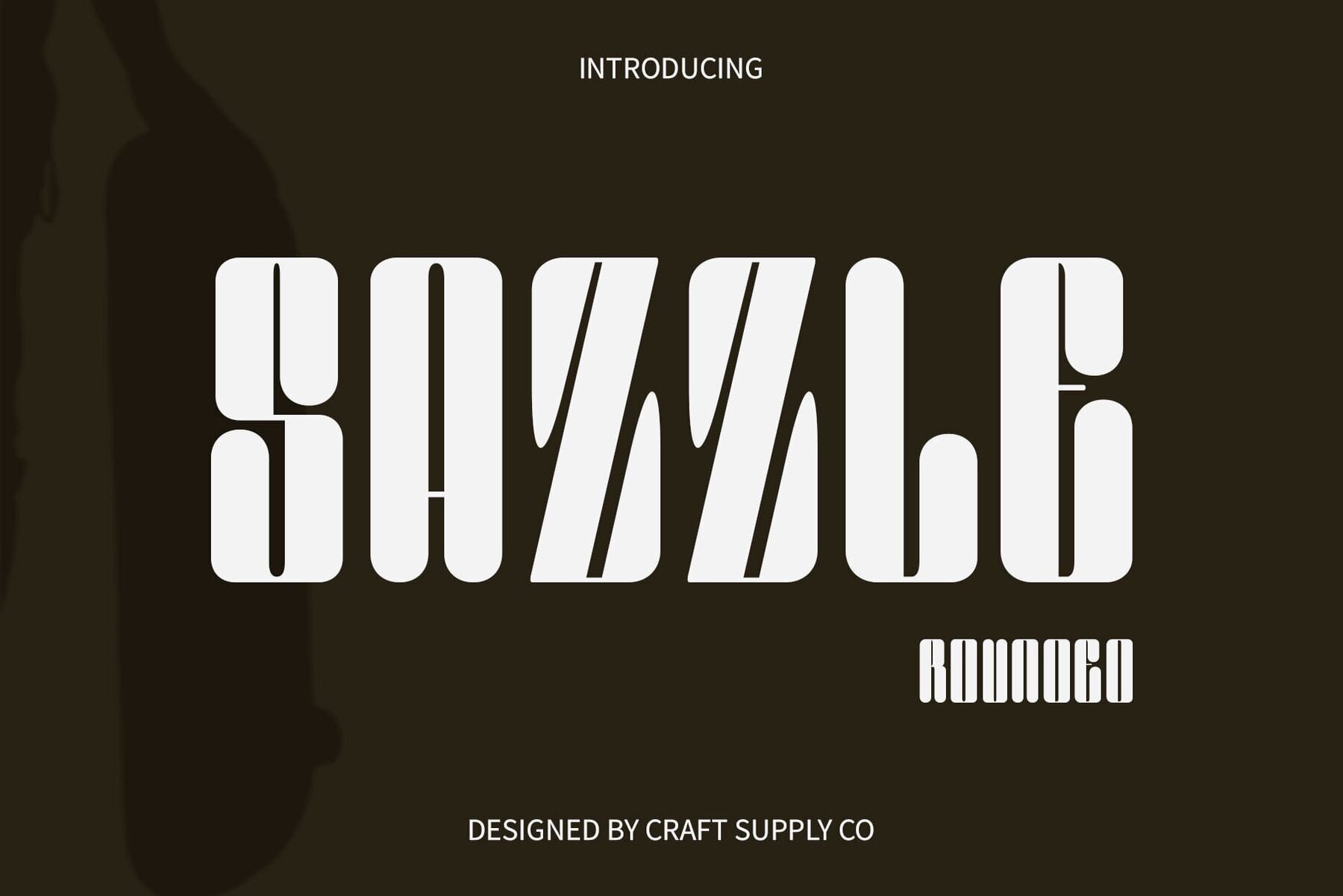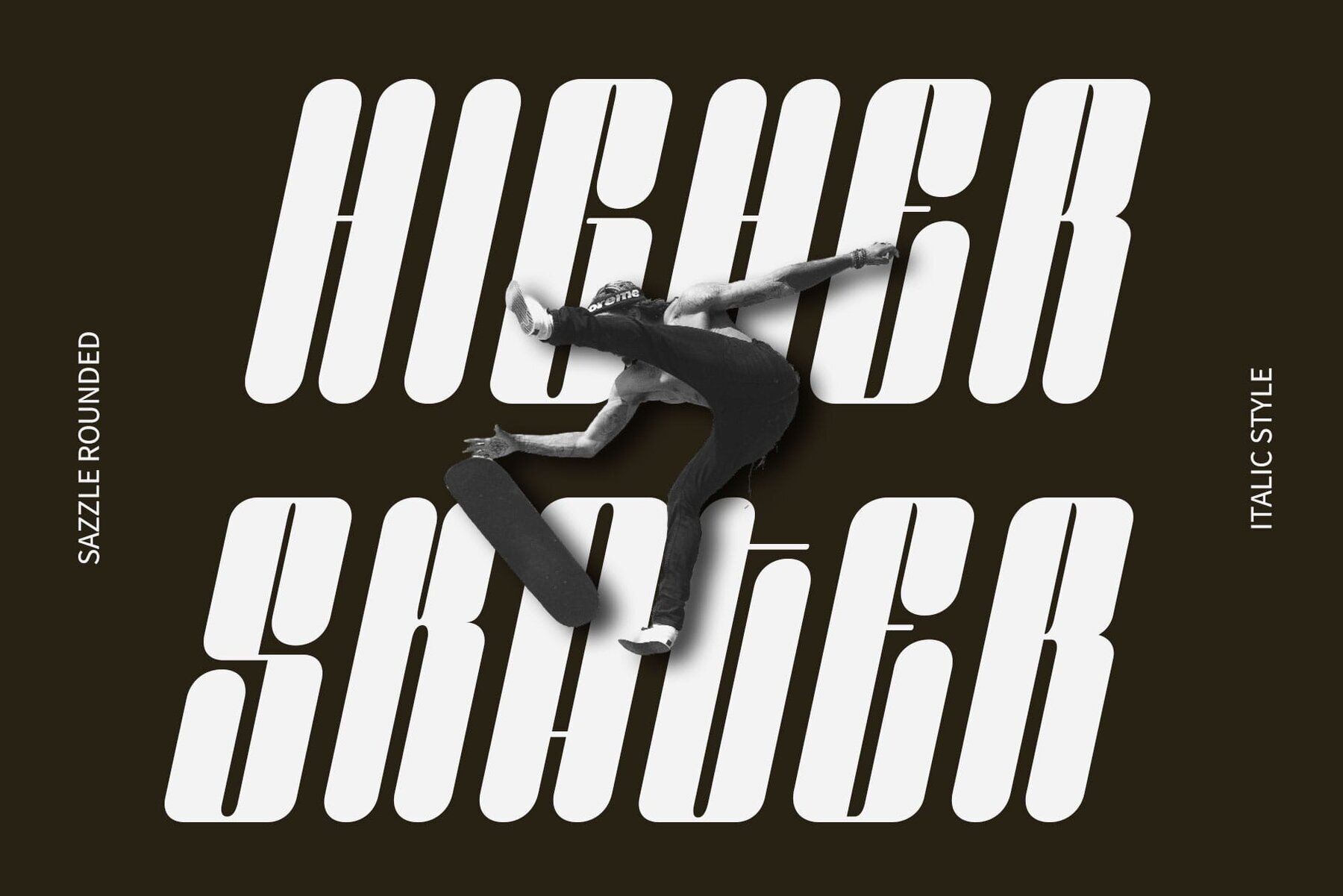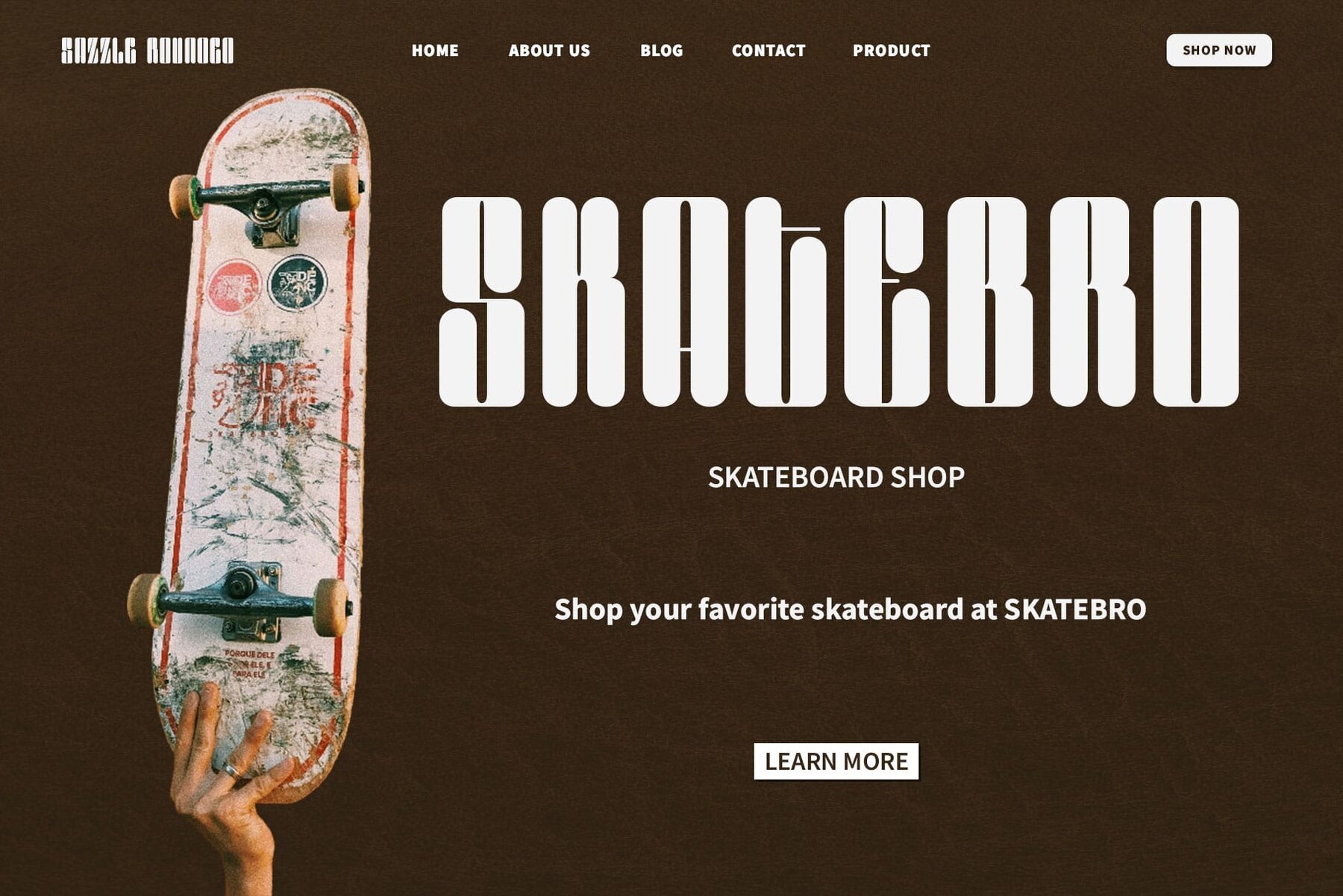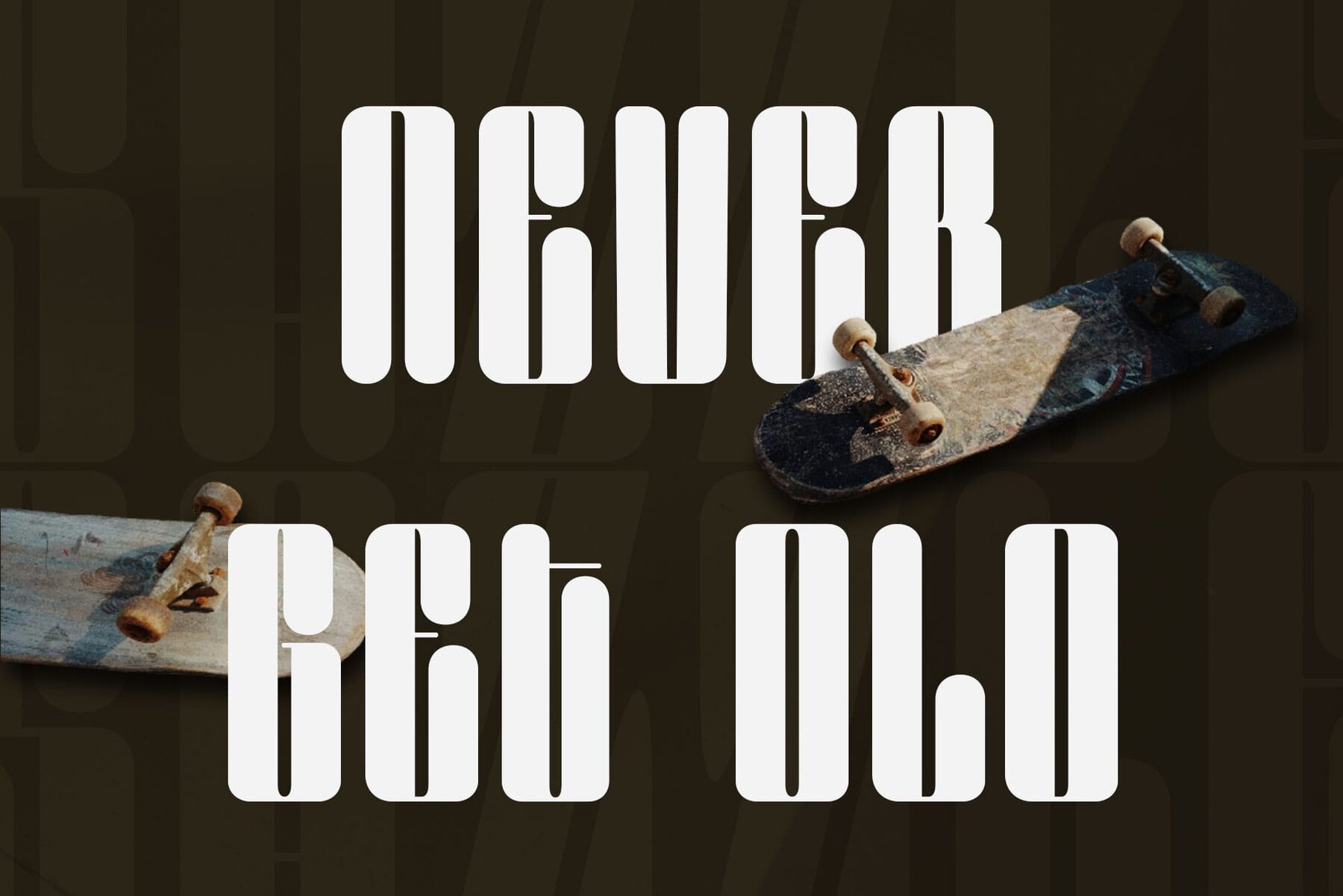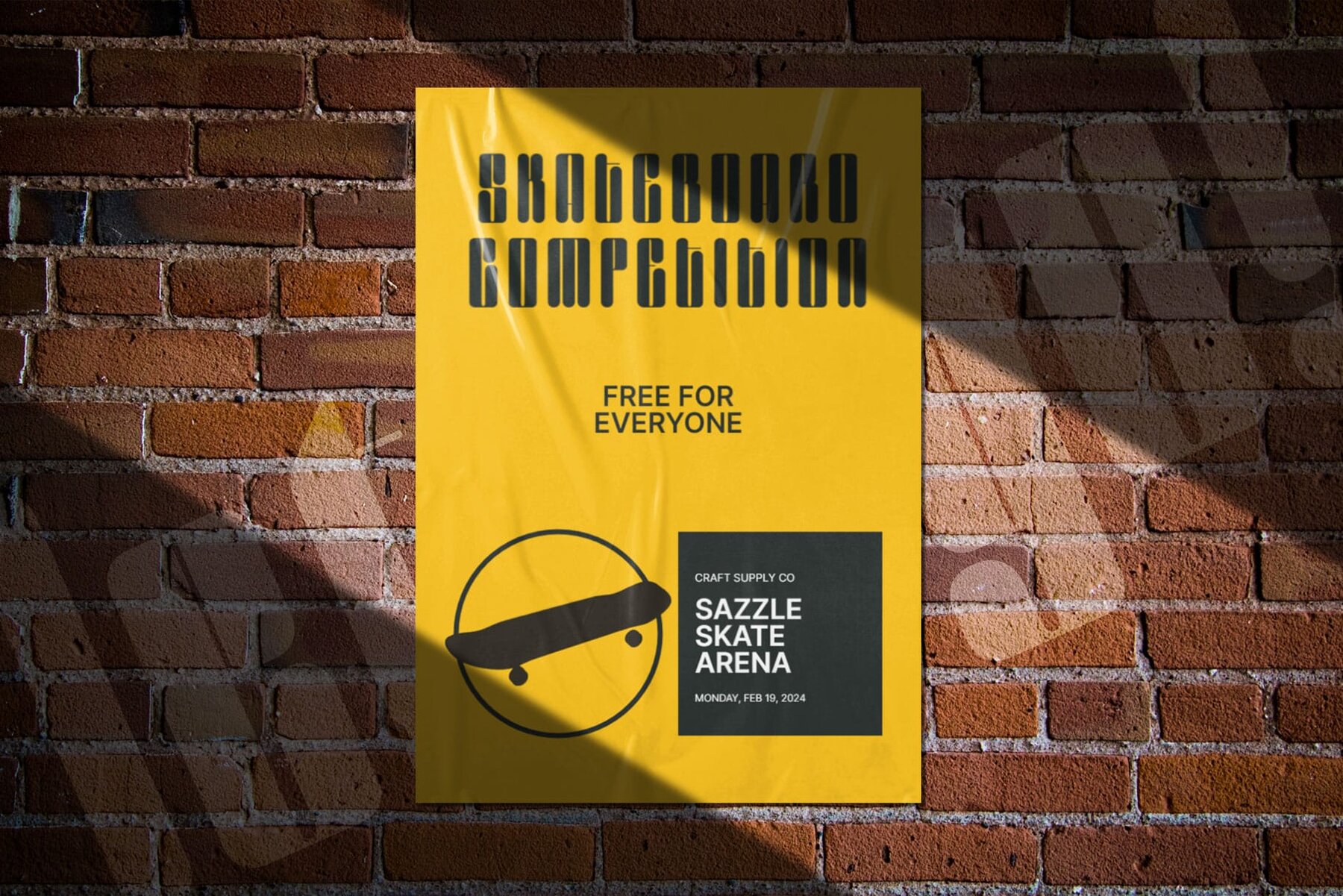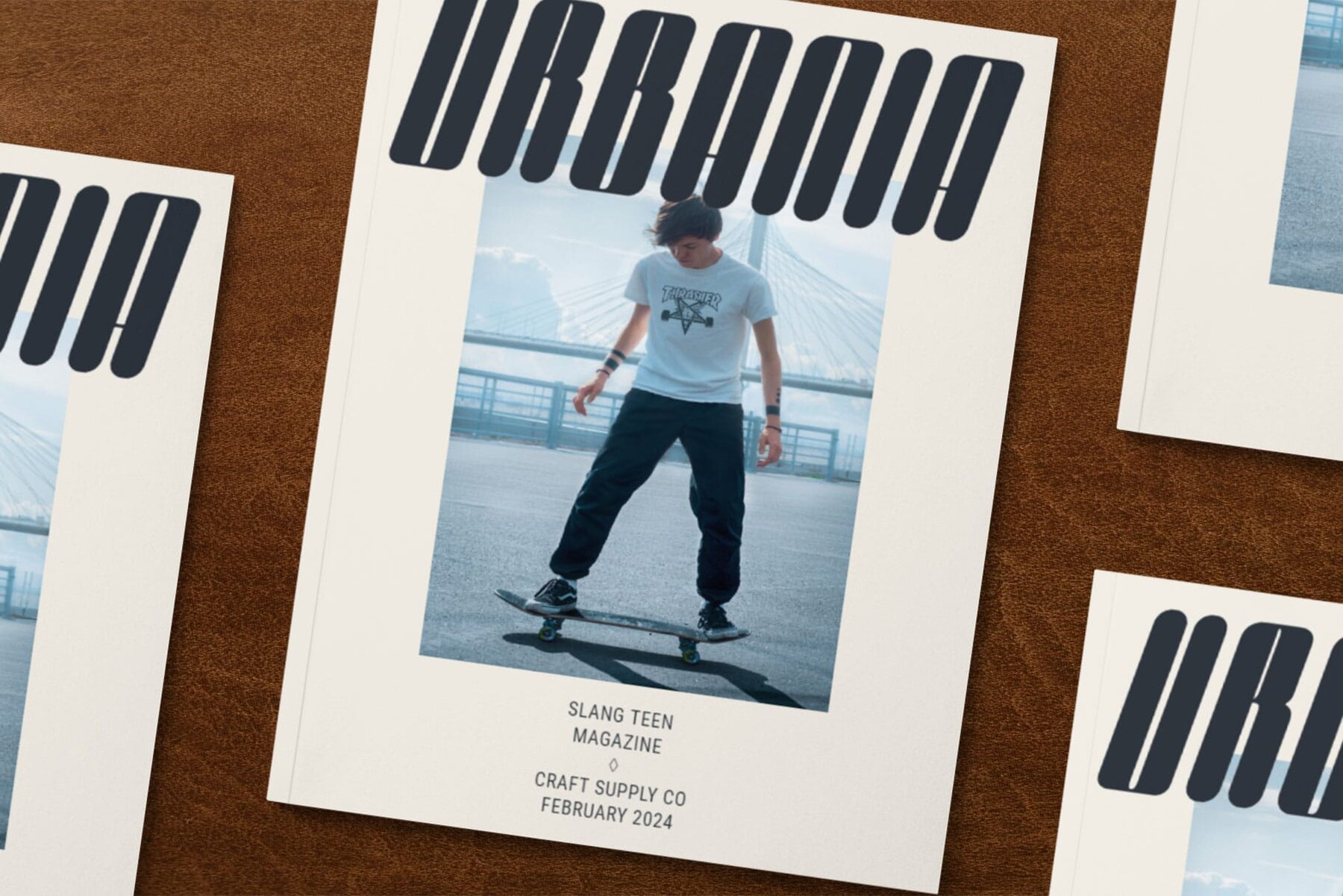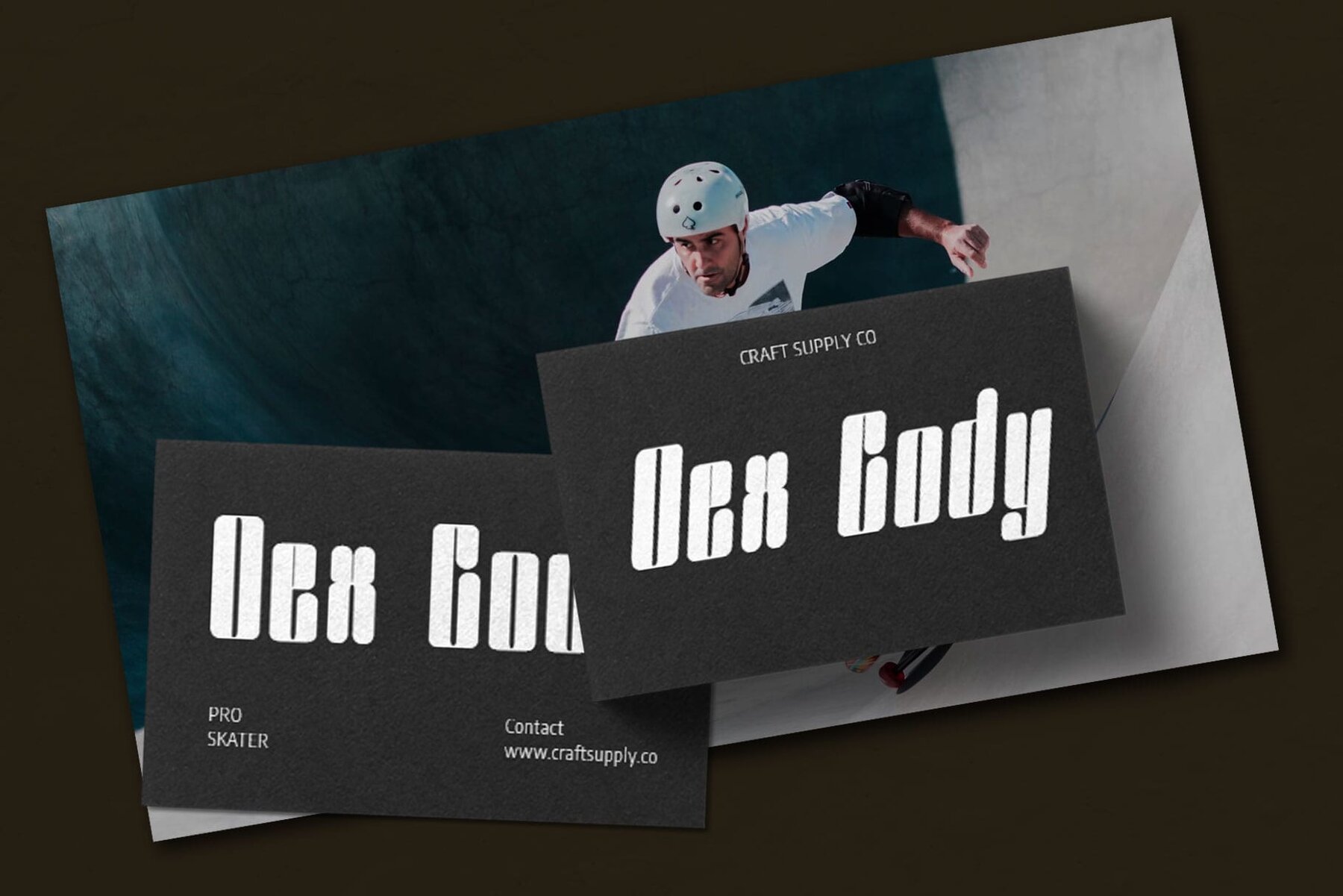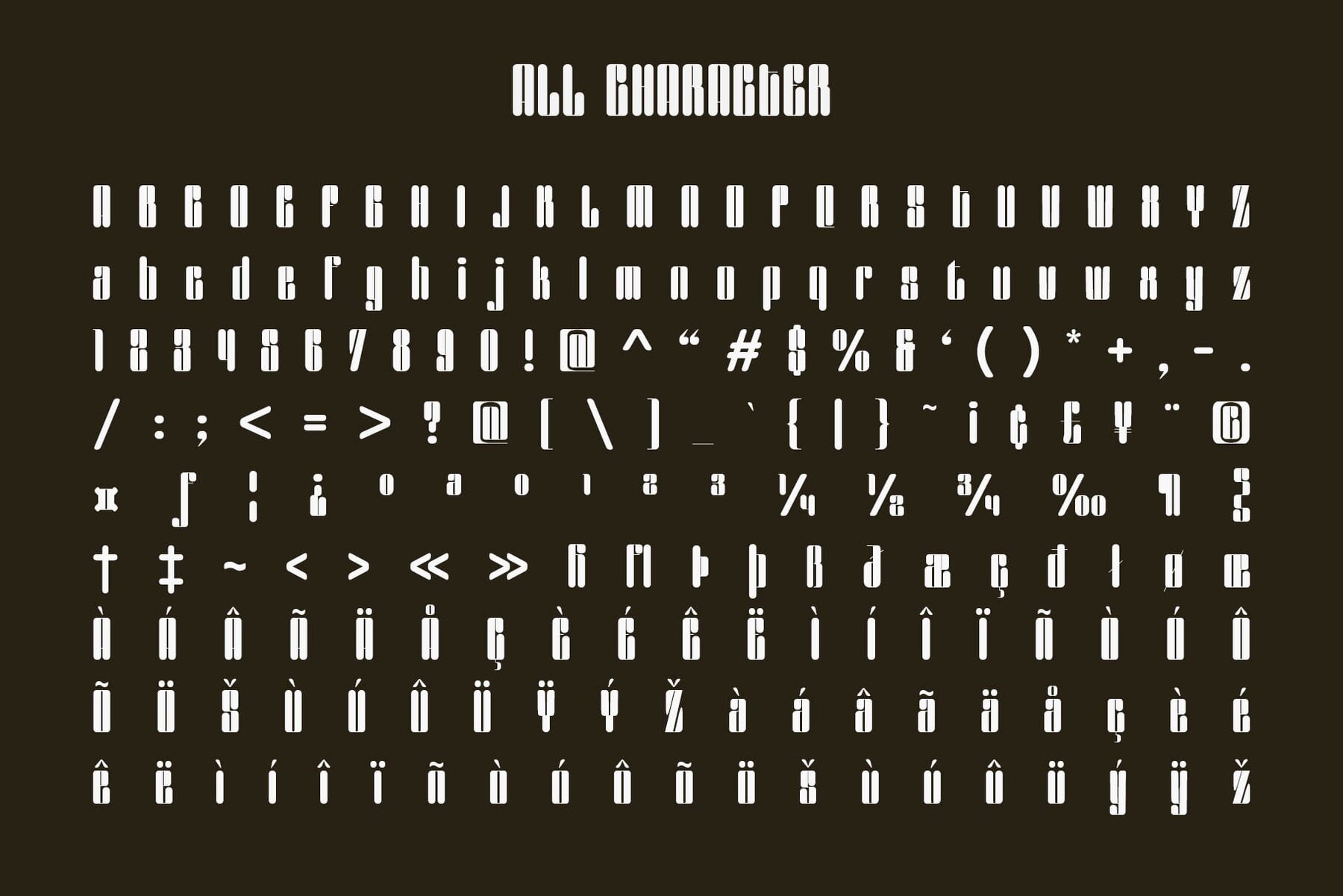
Sazzle Rounded Font
This font is a bold, geometric display typeface with a stencil-inspired design, characterized by high contrast and sturdy, blocky letterforms. It features clean lines and sharp angles, making it suitable for modern, futuristic, and industrial-themed projects. Its eye-catching and structured aesthetic makes it ideal for headings, posters, and other visual materials that require a strong, contemporary presence.